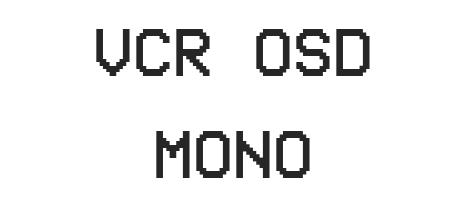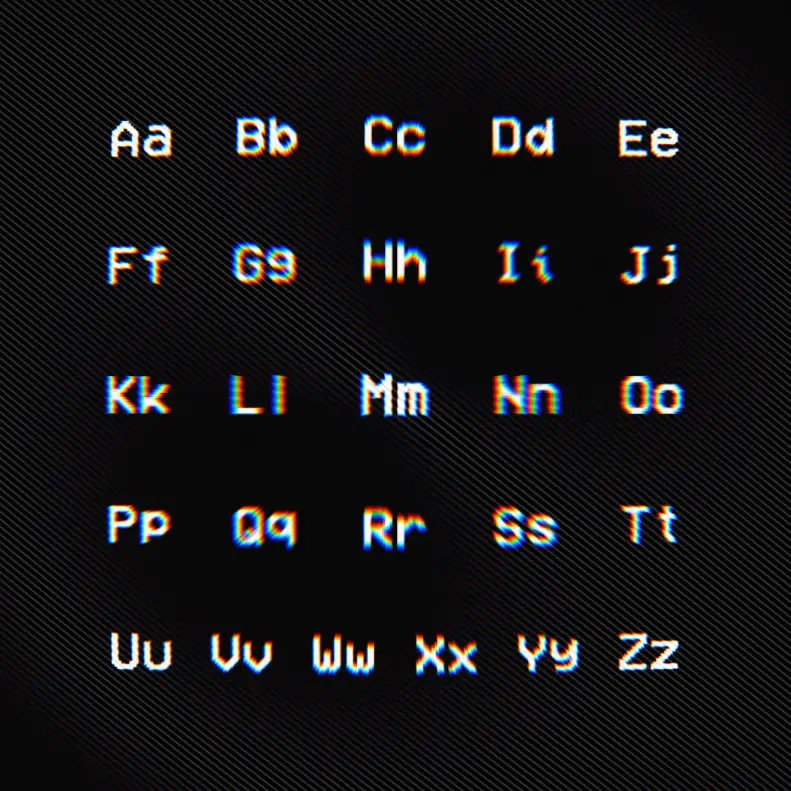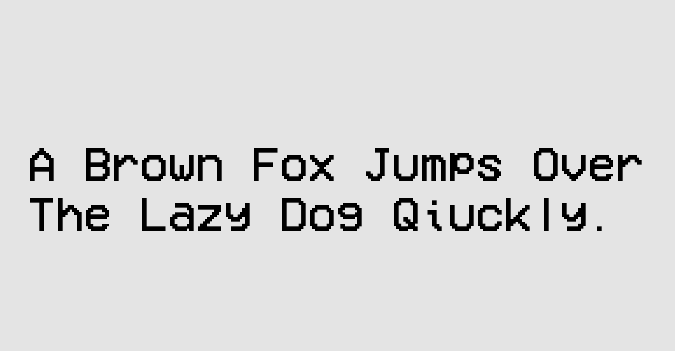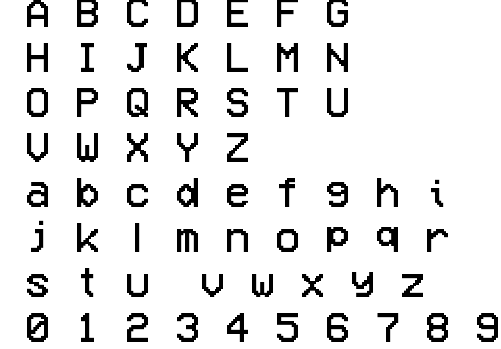
The crewmate/impostor title that appears at the beginning of games and tells you your role uses the vcr osd mono font.
The crewmate/impostor title that appears at the beginning of games and tells you your role uses the vcr osd mono font. If you want to modify the image further such as rotating, bending or blurring, you can use. Select the font 'custom' under the dropdown menu within the options panel.
The vcr osd mono font has been downloaded 111,281 times. Unlike other fonts, it only contains 1 style. Vcr osd mono font | designed by riciery leal | download vcr osd mono for windows and mac | category:
They are useful useful when displaying tabular data (like in a spreadsheet) and you want the columns to line up. Vcr osd mono font is a fresh and modern bitmap & pixel for the itc designers. Riciery leal designed this font free of cost for every type of use many years ago.
This font was designed and published by mr. Vcr osd mono font is a display font that you can apply on various devices. Vcr osd mono font generator.